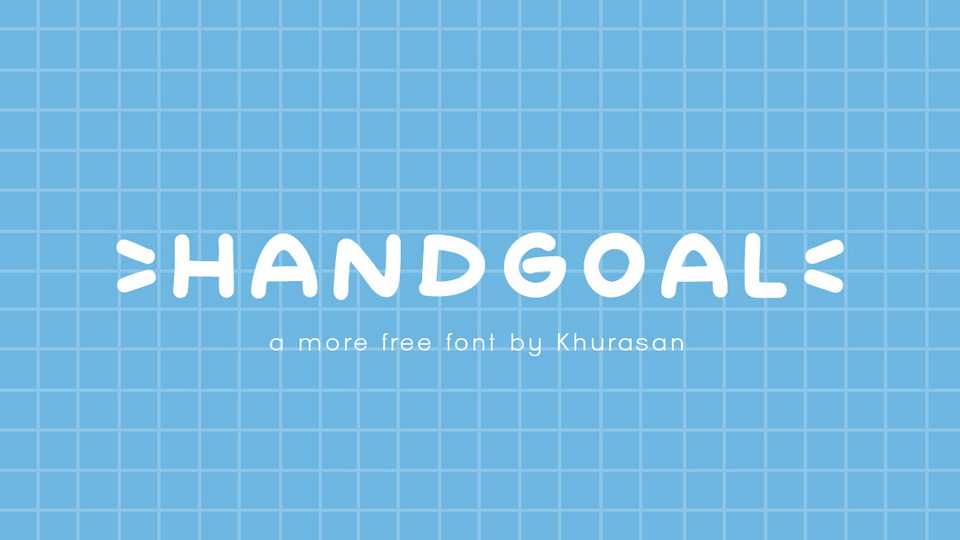
Download Handgoal font, a simple and cute handwritten typeface. Handgoal is perfect for notes, comics, posters, logos, magazines, book covers, banners, and many more.